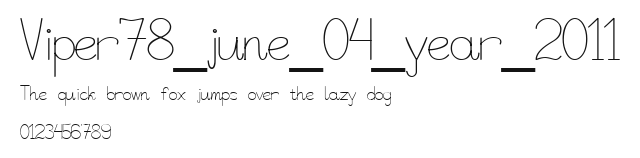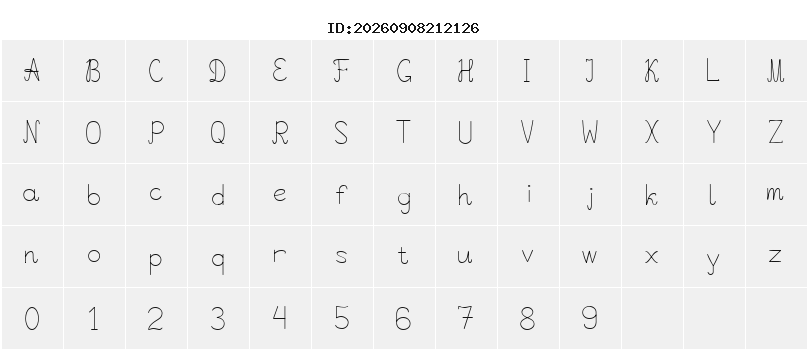
Viper78_june_04_year_2011 Preview
• Font Name: Viper78_june_04_year_2011
• Font ID: Macromedia Fontographer 4.1 Viper78 may_24_year_2009
• Full Font Name: Viper78_june_04_year_2011
• Version: Macromedia Fontographer 4.1 24.05.09
• PostScript Name: Viper78may24year2009
About Viper78_june_04_year_2011.ttf
Viper78_june_04_year_2011.ttf is a modern, elegant sans-serif font designed for ultimate readability and visual harmony. Perfect for branding, headlines, web design, and print materials.